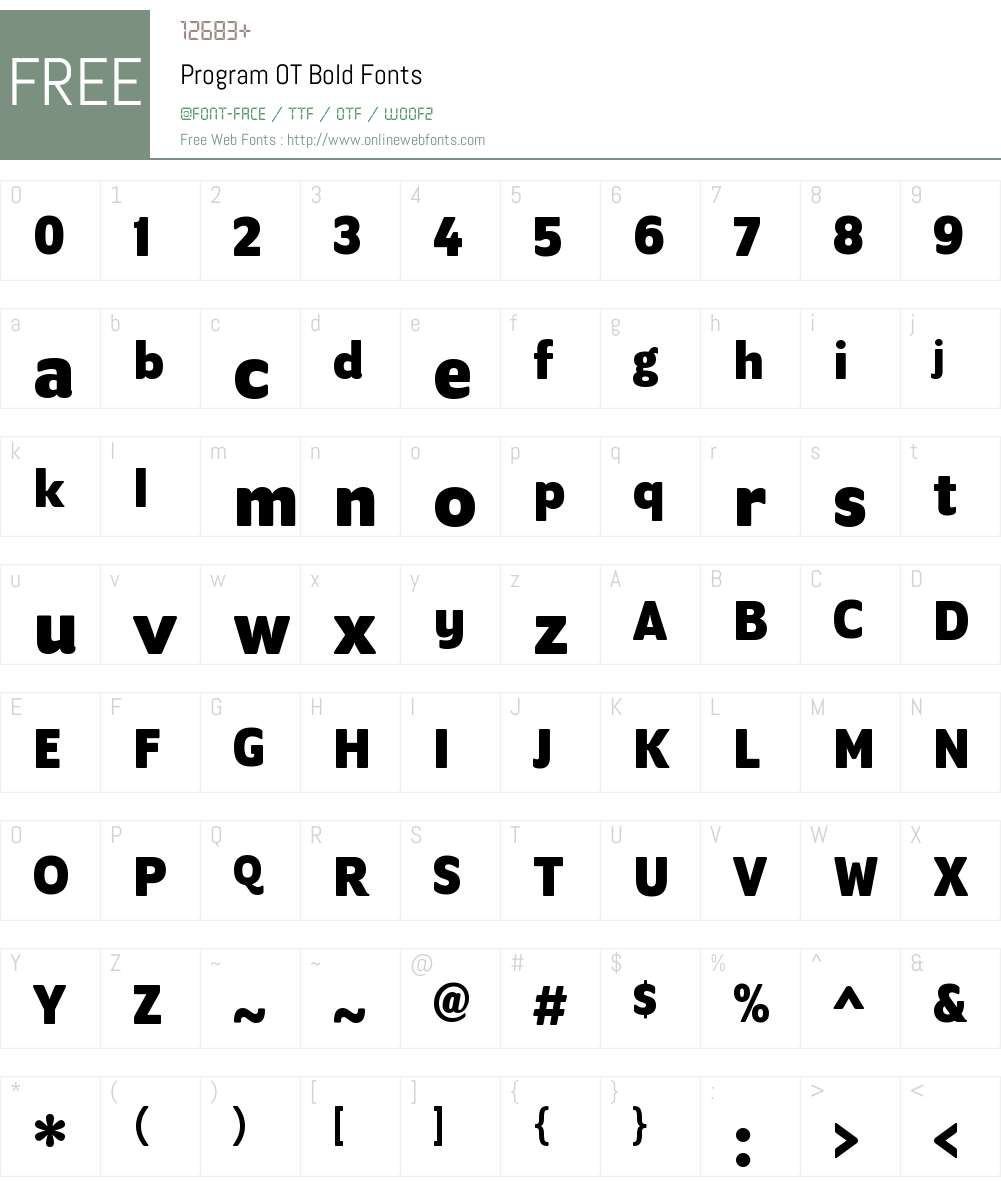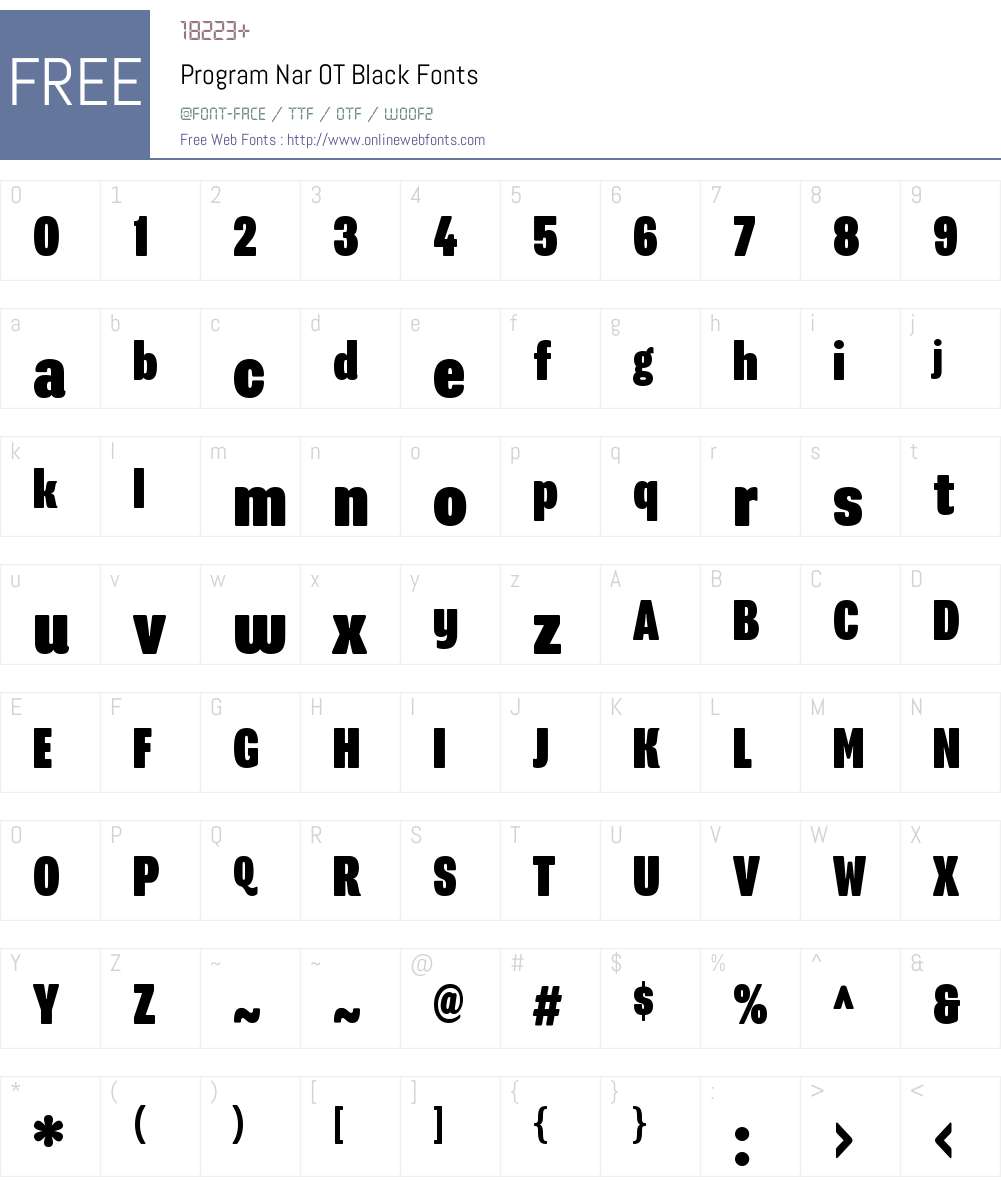
Web buy & download program ot bold, a font by emigre. Type here to preview text. Web or using @import css directive, put the following line in add to your css file. It’s about the craft of typeface design and the particular details and effects that type designers fret over when they design type.
Program Ot Bold Font - Web or using @import css directive, put the following line in add to your css file. Learn more about its features, similar fonts, and font pairing. Webfontfree.com some fonts provided are trial versions of full. ← back to family page. Web program is a type designer’s typeface.
Program Ot Bold Font - Web program is a type designer’s typeface. Web explore program designed by zuzana licko at adobe fonts. Type here to preview text. ← back to family page. Learn more about its features, similar fonts, and font pairing.
Program Ot Bold Font - Web thousands of designers (famous or not) use the image font detection system to find a font or similar free fonts. Web explore program designed by zuzana licko at adobe fonts. Web program is a type designer’s typeface. Learn more about its features, similar fonts, and font pairing. Web or using @import css directive, put the following line in add.
Program Ot Bold Font - Web program is a type designer’s typeface. Web buy & download program ot bold, a font by emigre. Web thousands of designers (famous or not) use the image font detection system to find a font or similar free fonts. Web explore program designed by zuzana licko at adobe fonts. A sans serif typeface with 14 styles, available from adobe fonts.
Program Ot Bold Font - Web explore program designed by zuzana licko at adobe fonts. ← back to family page. Web or using @import css directive, put the following line in add to your css file. A sans serif typeface with 14 styles, available from adobe fonts for. It’s about the craft of typeface design and the particular details and effects that type designers fret.
Program Ot Bold Font - Webfontfree.com some fonts provided are trial versions of full. It’s about the craft of typeface design and the particular details and effects that type designers fret over when they design type. Web explore program designed by zuzana licko at adobe fonts. Type here to preview text. Web thousands of designers (famous or not) use the image font detection system to.
Program Ot Bold Font - Web or using @import css directive, put the following line in add to your css file. Web buy & download program ot bold, a font by emigre. A sans serif typeface with 14 styles, available from adobe fonts for. Type here to preview text. It’s about the craft of typeface design and the particular details and effects that type designers.
Program Ot Bold Font - Webfontfree.com some fonts provided are trial versions of full. Web program is a type designer’s typeface. Type here to preview text. Web buy & download program ot bold, a font by emigre. Web or using @import css directive, put the following line in add to your css file.
Program Ot Bold Font - It’s about the craft of typeface design and the particular details and effects that type designers fret over when they design type. Learn more about its features, similar fonts, and font pairing. ← back to family page. Web program is a type designer’s typeface. Web or using @import css directive, put the following line in add to your css file.
Program Ot Bold Font - ← back to family page. Web buy & download program ot bold, a font by emigre. Web or using @import css directive, put the following line in add to your css file. It’s about the craft of typeface design and the particular details and effects that type designers fret over when they design type. Web explore program designed by zuzana.
Program Ot Bold Font - Type here to preview text. Web buy & download program ot bold, a font by emigre. Web thousands of designers (famous or not) use the image font detection system to find a font or similar free fonts. A sans serif typeface with 14 styles, available from adobe fonts for. It’s about the craft of typeface design and the particular details.
Program Ot Bold Font - Web program is a type designer’s typeface. Type here to preview text. Web explore program designed by zuzana licko at adobe fonts. ← back to family page. A sans serif typeface with 14 styles, available from adobe fonts for.